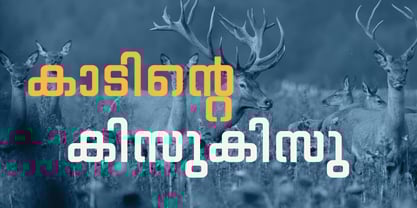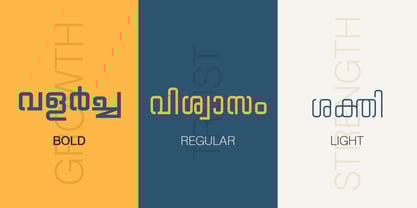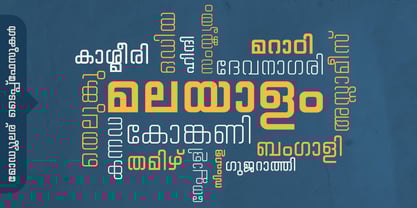
Shree Malayalam 0512
by Modular InfoTech
The Shree Malayalam 0512 Font Family was designed by Modular Infotech and published by Modular InfoTech. Shree Malayalam 0512 contains 6 styles and family package options. More about this family
Shree Malayalam 0512 is a precision-minded, geometric display typeface built around compact, upright proportions and a nearly monoline stroke. It is available in three weights — Light, Regular, Bold, each with matching italics. The family reads as a modern technical voice; narrow sidebearings, consistent stroke width and squared-but-softened terminals create a crisply engineered texture that stays readable at display sizes while conserving horizontal space. Its overall effect is contemporary and functional rather than decorative, making it well suited where clarity, cadence and a restrained digital/industrial aesthetic are required. It is best suited for technical branding, product UI headers, instrument panels and control-labels, modern signage, and packaging for technology or electronics where a compact, legible Malayalam headline is needed. It also works well for corporate reports, annual-report headers, book covers, banners, and editorial captions in narrow columns and any application that benefits from a disciplined, space-efficient display voice with a distinctly contemporary feel.
Designers: Modular Infotech
Foundry: Modular InfoTech